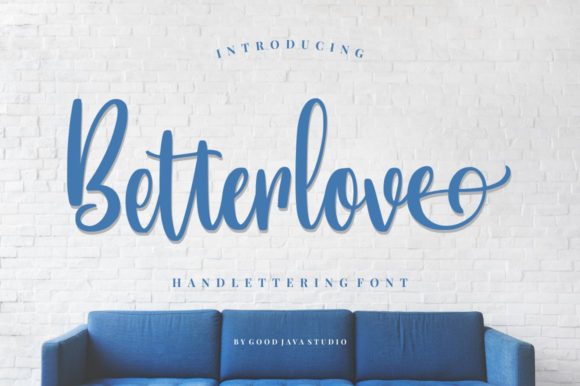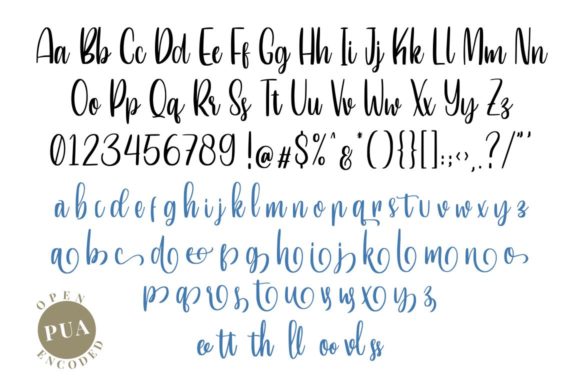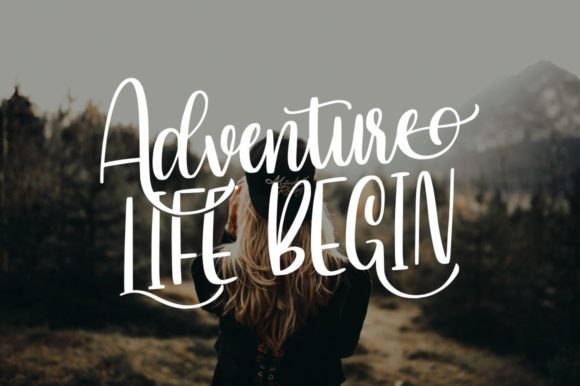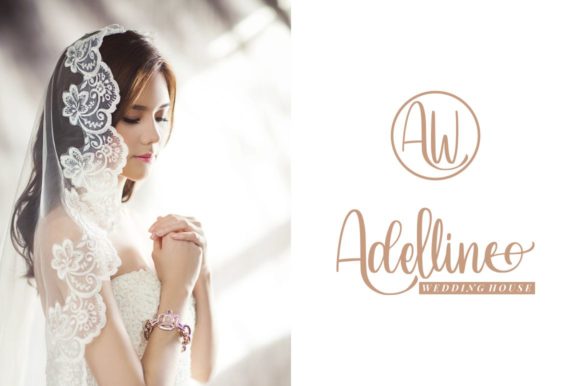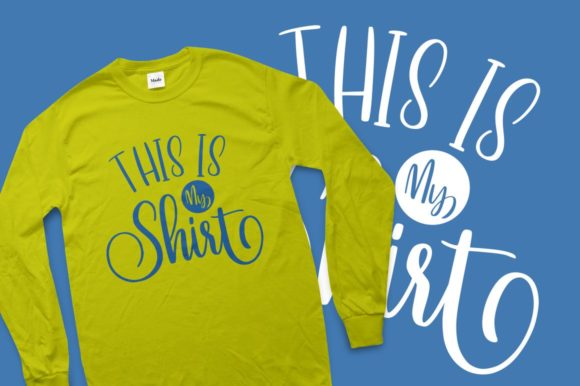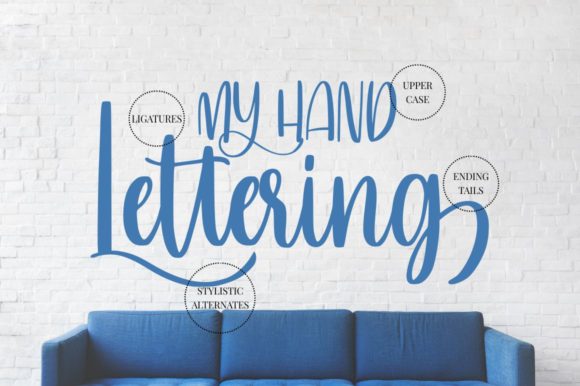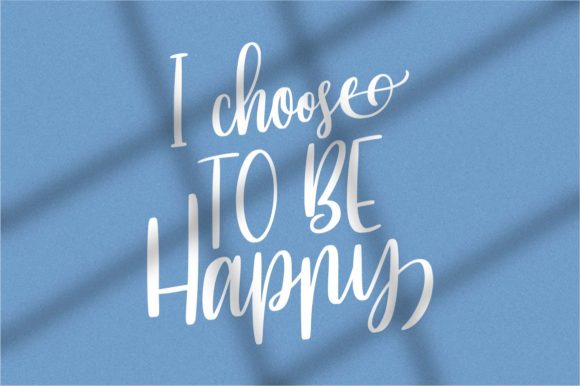
Betterlove Font
Betterlove is beautiful script font that includes many alternate swashes in start and ending character. Fall in love with its unique charm.